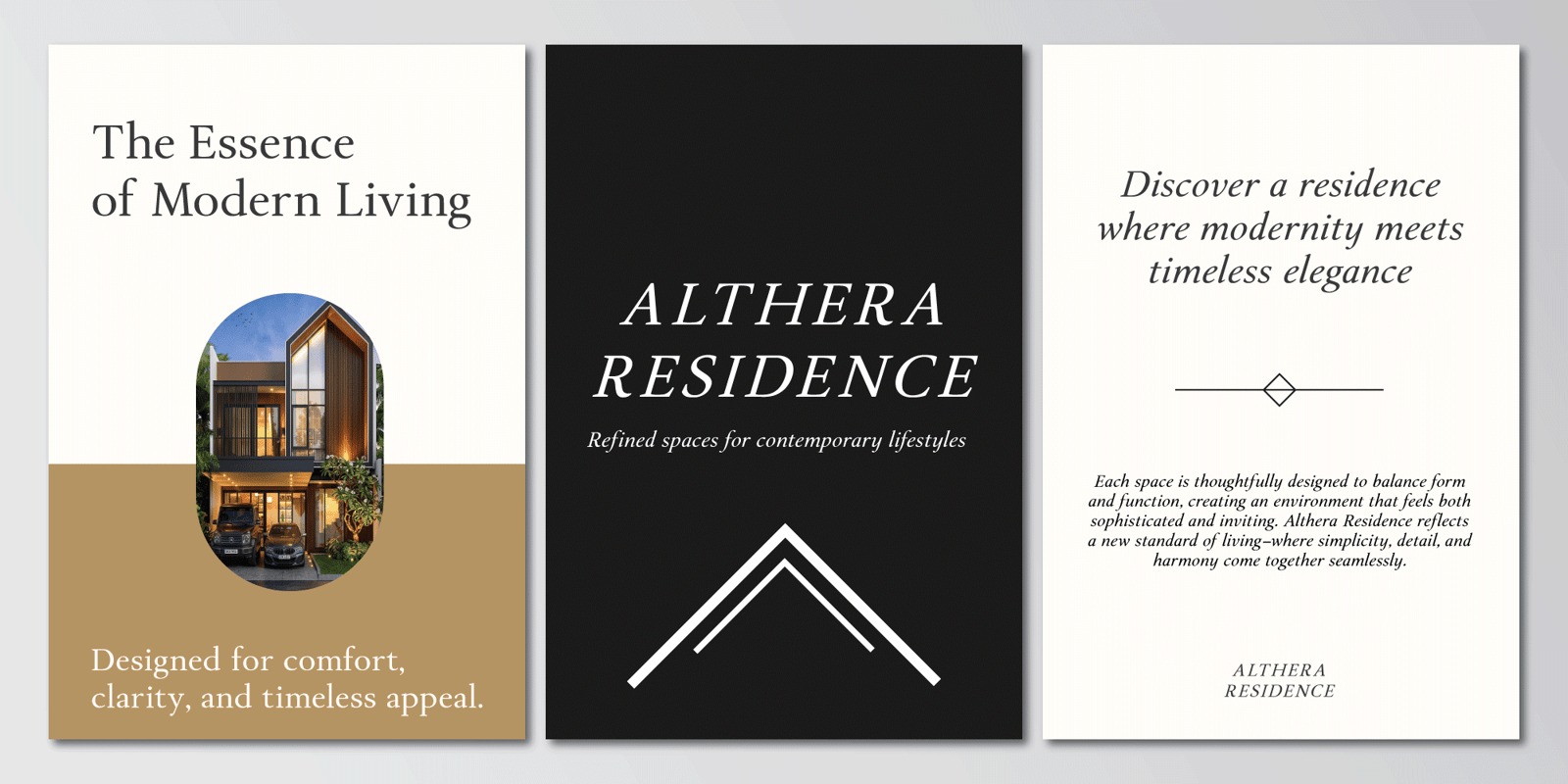
Althera Font
Althera Font is a distinctive and expressive font crafted to bring personality, structure, and creative energy into your projects. Althera – Modern Editorial Serif for Luxury Branding Althera is a refined modern serif crafted for editorial elegance and premium branding. Designed with balanced proportions and smooth, controlled contrast, Althera delivers a sophisticated voice while maintaining excellent readability—making it ideal for both striking headlines and extended text. Created for designers, studios, and brands seeking a timeless yet contemporary aesthetic, Althera brings clarity, confidence, and understated luxury to every composition. It performs seamlessly across print and digital, from high-end branding to structured editorial layouts. Perfectly suited for: • Fashion and luxury branding • Beauty and skincare packaging • Editorial design and magazines • Logo and identity systems • Elegant websites and portfolios Althera combines the grace of a classic serif with the flexibility required for modern design workflows—making it a reliable choice for both expressive and functional typography. Features: • Complete uppercase and lowercase set • Numerals, punctuation, and symbols • Multilingual support • Optimized spacing for balanced readability Ideal for designers who need a serif that performs beautifully across branding and editorial use. Althera — where editorial elegance meets modern branding.